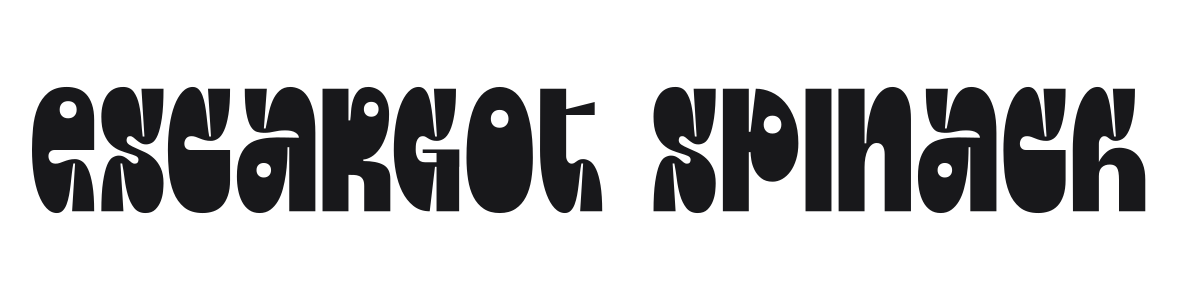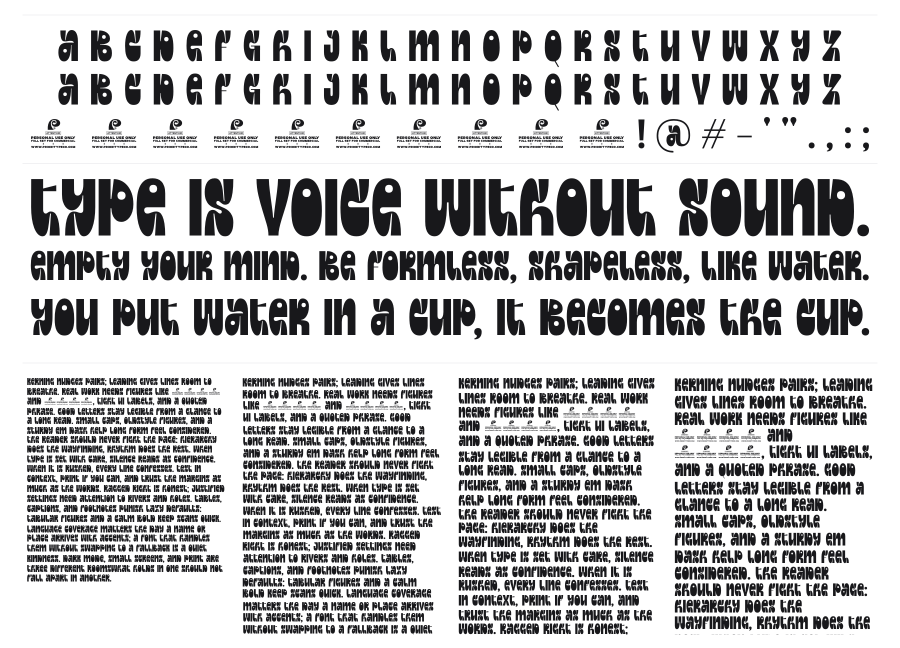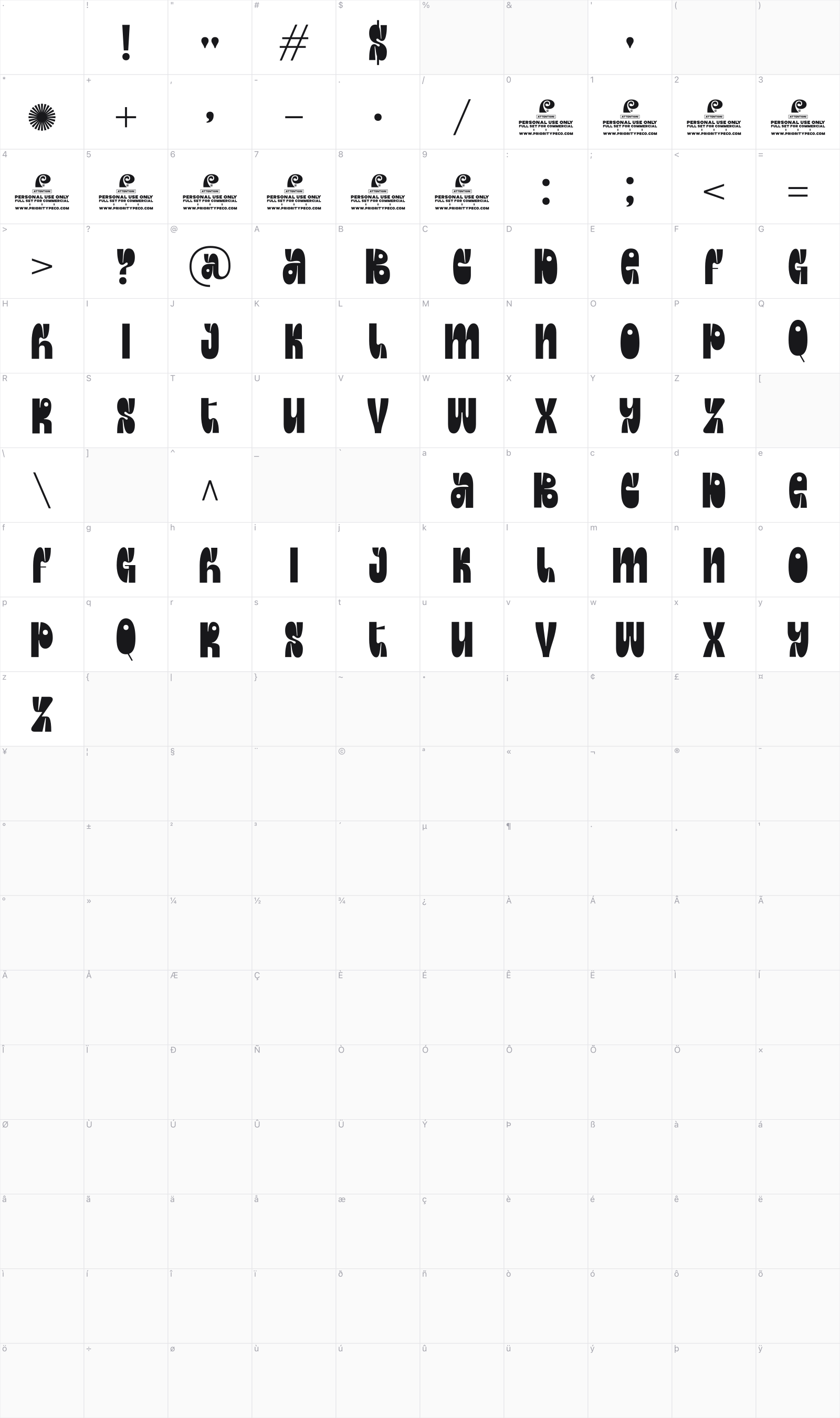
Escargot Spinach
Escargot Spinach is a heavy, balloon-rounded display face with deep roots in 1960s and 70s psychedelic typography. Every character swells with thick, organic curves and tiny pinched counters that give words a dense, almost inflatable presence. It brings instant retro energy to posters, album art, packaging, and any headline that needs a bold personality.